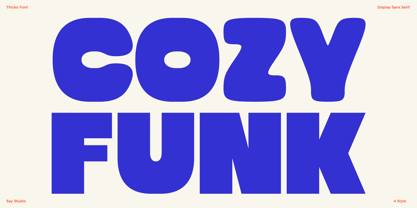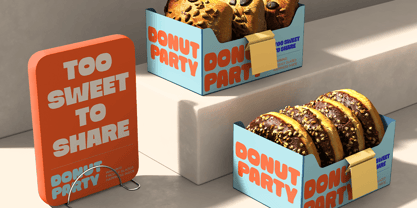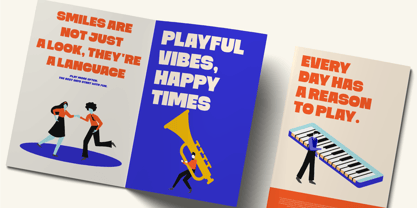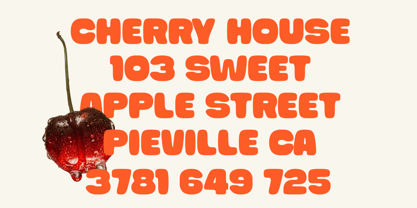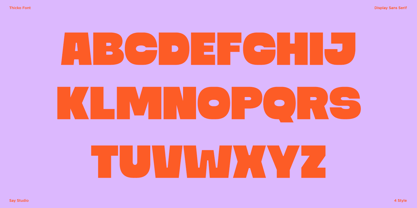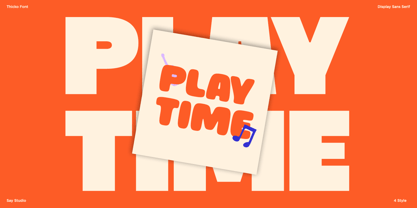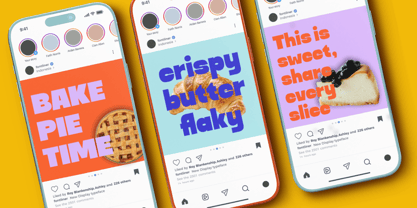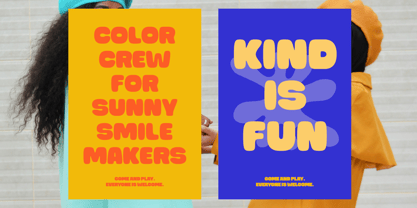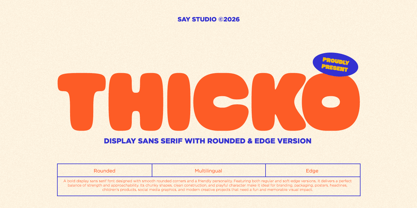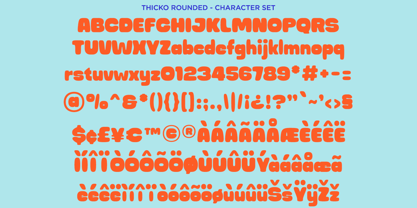
Thicko
Thicko is a bold display sans serif font designed to bring energy, personality, and playful confidence to every design. Featuring chunky proportions, smooth rounded corners, and clean geometric construction, it instantly creates eye-catching headlines with a friendly and modern feel. The family includes both Rounded and Edge styles, giving you greater flexibility for soft, cheerful branding or stronger, more expressive typography.
Perfect for brands that want to stand out, Thicko works beautifully across packaging, food branding, children's products, toy packaging, posters, social media graphics, logos, merchandise, editorial headlines, advertising campaigns, YouTube thumbnails, mobile apps, and playful visual identities. Its thick letterforms remain highly readable even at large display sizes while delivering a bold visual impact.
Whether you're creating colorful packaging, fun event promotions, café branding, candy labels, snack packaging, creative marketing materials, or modern digital content, Thicko provides a memorable typographic voice that feels approachable, energetic, and contemporary.
• Rounded & Edge Style
• Regular & Italic
• Uppercase & Lowercase
• Number, Symbol, & Punctuation
• Multi Language Support